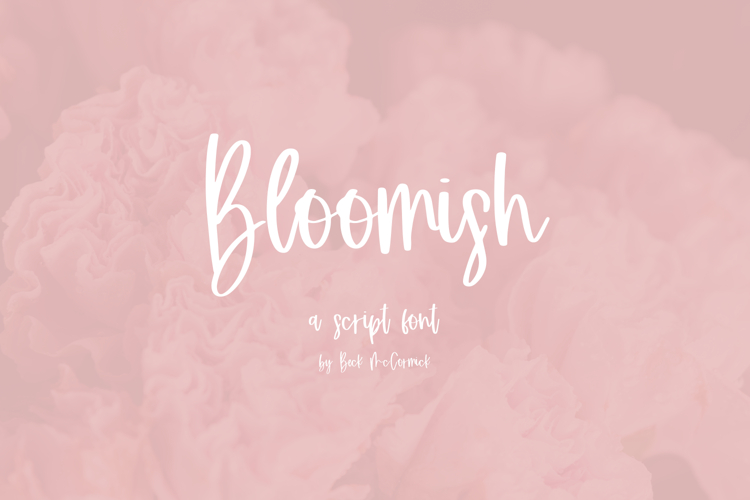
Bloomish Script
Introducing Bloomish Script, a handwriting font. Bloomish is a great fit for effortlessly designing logos & branding, paper products, or as a headline on your website. Bloomish can also be used for other print design like magazines and flyers or printed marketing materials. This font can also be used for digital marketing materials and social media items!